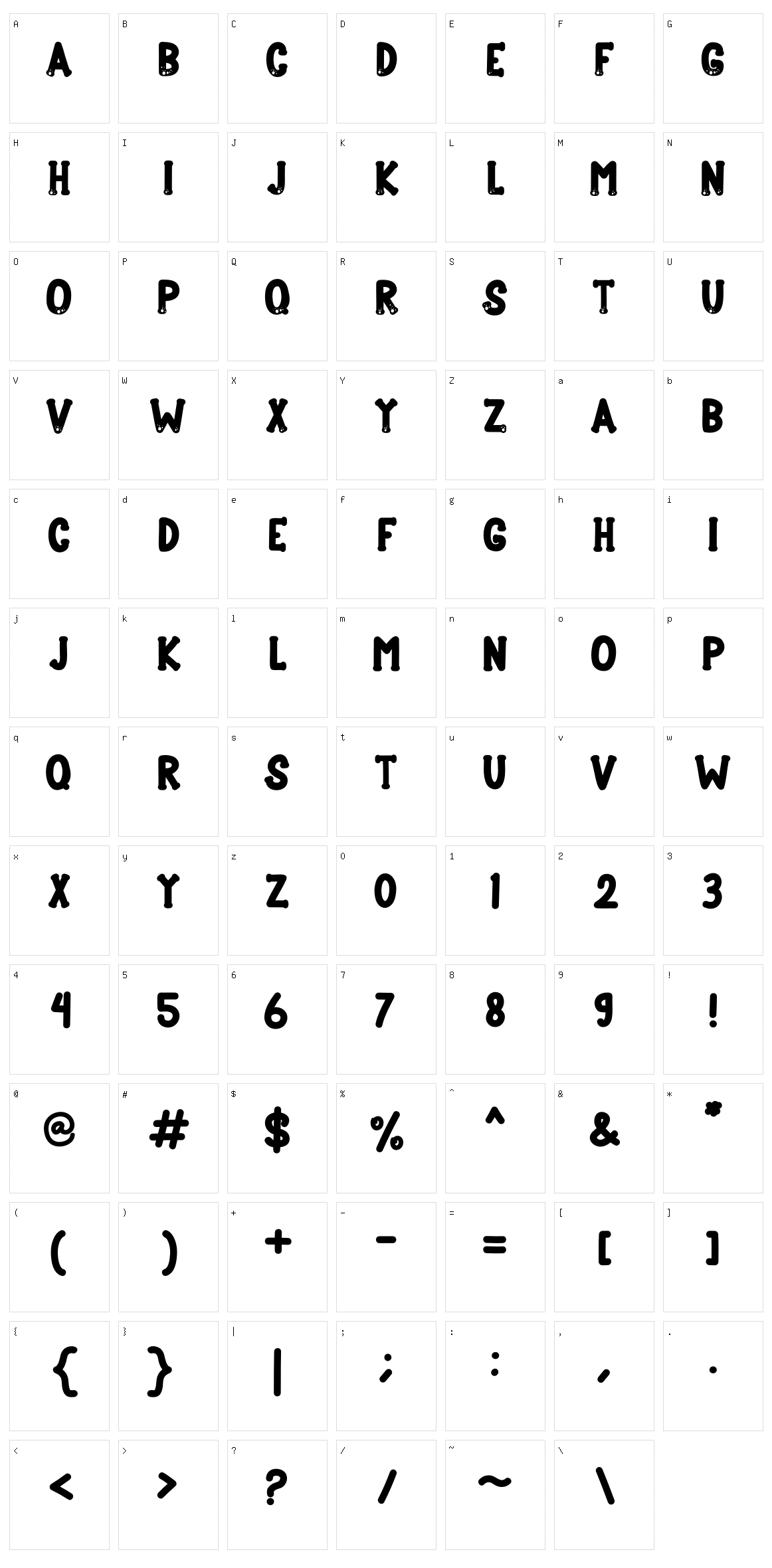
The free font Barkoly is carefully designed by Adevio Studio, showcasing a thoughtful balance of creativity and usability and falls under the Cartoon font style. When you download the ZIP file, it contains only 27.43 KB of font files, making it lightweight and quick to download. Please review the license details below to understand permitted usage and distribution rights. If license information is not available, we recommend using this font for personal projects only or contacting the author directly for commercial usage permissions.